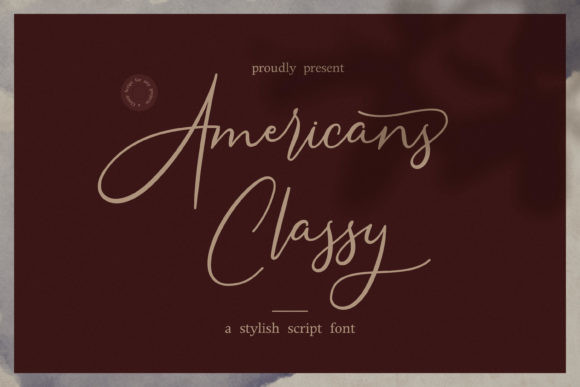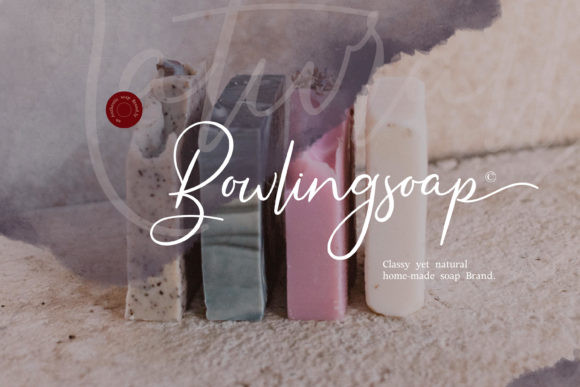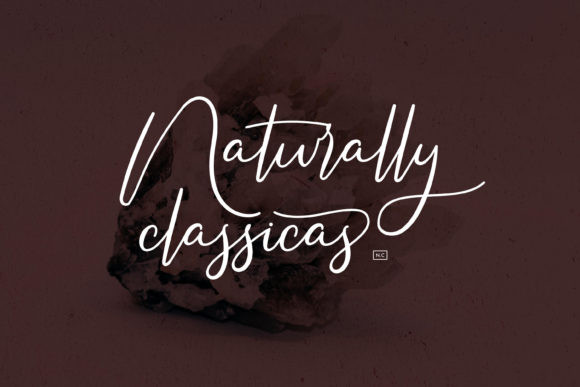
Americans Classy Font
Americans Classy is a thin and beautiful handwritten font, described by a refined touch. Fall in love with its distinct and timeless style and use it to create spectacular designs!